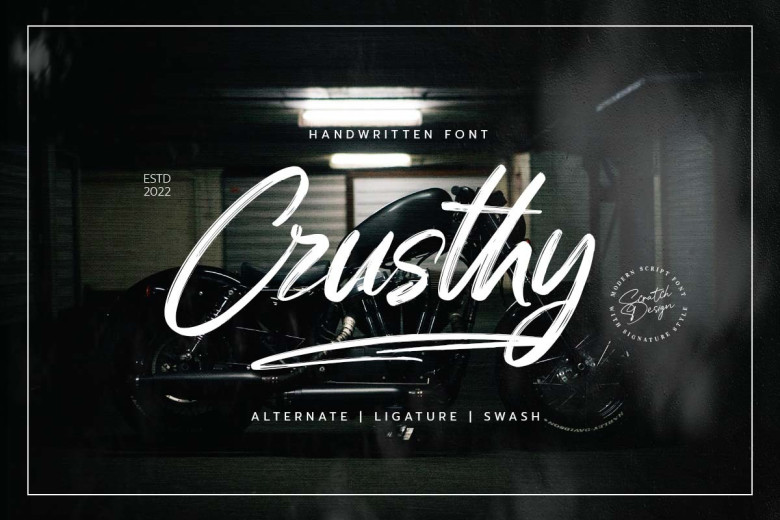
Crusthy Font
Crusthy is a modern handwritten font you live signature and brush texture. This font comes with textured handwriting which will look authentic but can be read and is very useful in many designs. This font will be great in designing concepts in which a headline is necessary, whether with a colorful background or on a minimalist background.
Crusthy Modern Brush Font